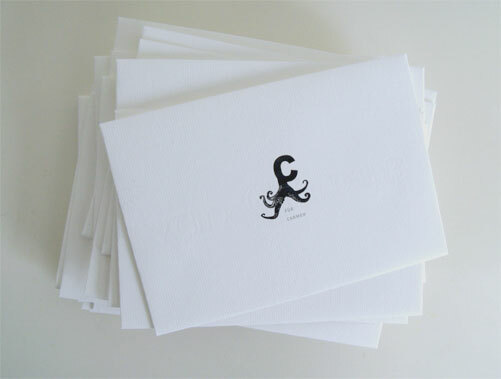
Paul Pulpo by Andrea Bartsch is a free decorative display font built around a lively octopus motif. Heavy, blunt letterforms rise above clusters of curling tentacles, with suction-cup textures and ink-like speckling worked into the lower edges. The silhouettes are theatrical, broad, and unmistakably marine even before the ornament is examined.
Underwater adventures and comic sea monsters make an obvious setting for children's book covers, aquarium event posters, and game graphics. It could also turn seafood packaging or coastal festival merchandise into an illustrated scene, since the repeated tentacles let each word become part creature and part lettering or title.